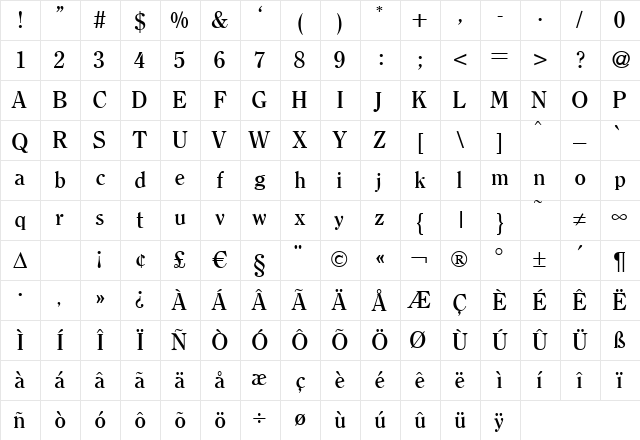
ClearfaceOldStyle Regular
Design Context for ClearfaceOldStyle
ClearfaceOldStyle carries the refined structure of traditional serif typography, with bracketed terminals and considered proportions that communicate credibility and craft.
Pro Tip: Use ClearfaceOldStyle for editorial body copy and considered headline work. Pair with a neutral sans for UI elements or captions to create a classic hierarchy.